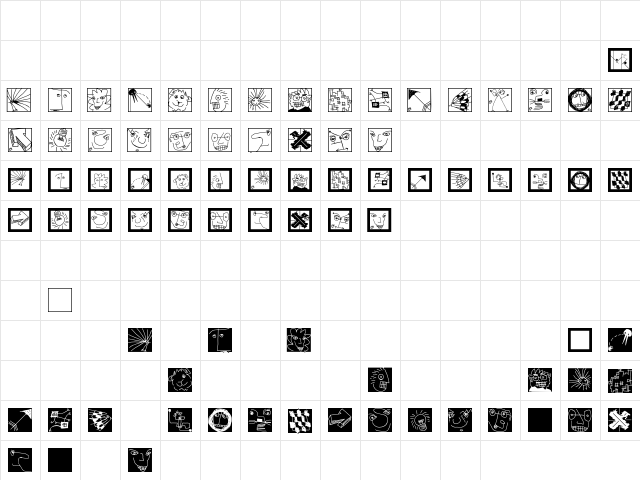
KleinsLittleDings Regular
Design Context for KleinsLittleDings Typeface
KleinsLittleDings is a composed and adaptable typeface that performs quietly and consistently across a wide range of design contexts.
Pro Tip: Use KleinsLittleDings in both headline and body roles to test its range before committing to a single application.